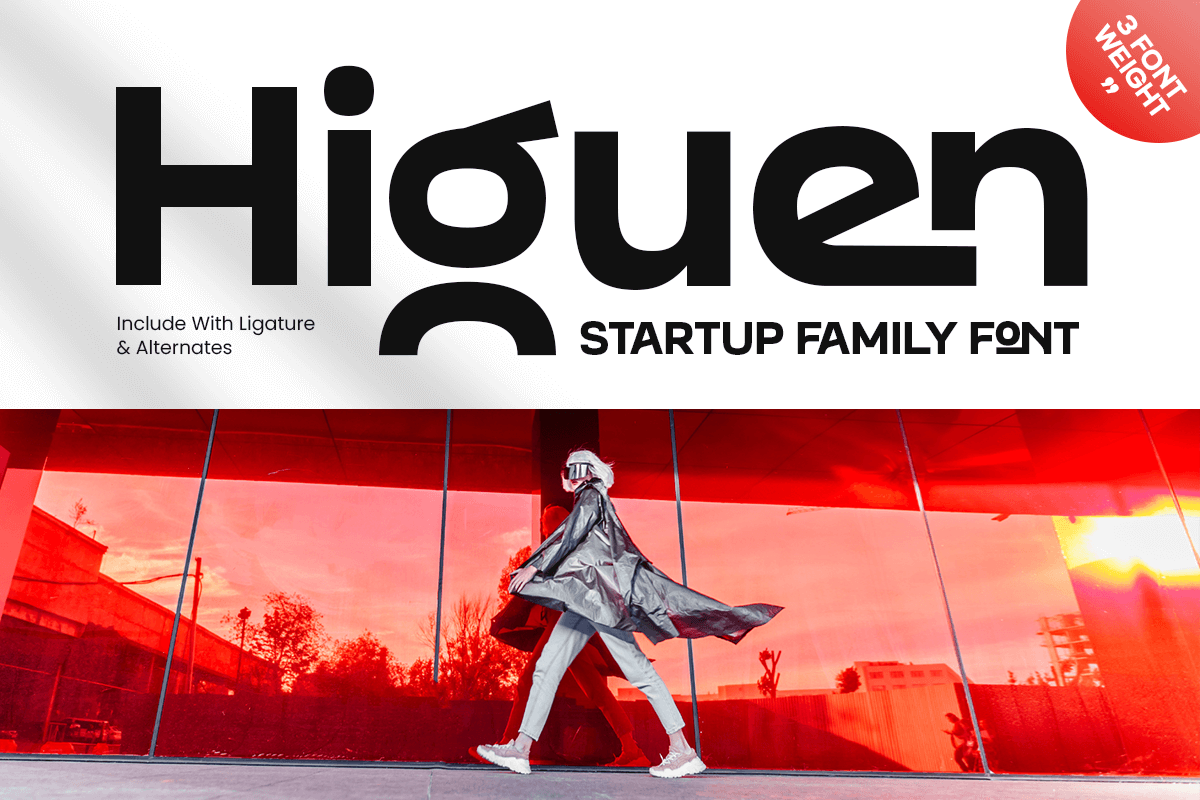
Higuen
-Modern Font Family
Higuen - Modern Font Family
Higuen is a modern font family designed to bring clarity, balance, and sophistication to any creative or professional project. With multiple weights and versatile letterforms, it adapts beautifully across logos, editorial layouts, digital interfaces, and corporate identities.
Perfect for modern branding, presentations, and user interfaces, Higuen offers geometric precision combined with smooth proportions — delivering a sleek and professional tone for both print and screen use. From minimalist posters to business brochures, this typeface family ensures consistent elegance and readability.
Whether you’re designing for tech companies, creative agencies, or digital startups, Higuen provides a complete typographic system that makes your brand feel confident, modern, and timeless. Pair it with serif or decorative fonts to create a balanced design composition.
Higuen – Modern Font Family Features
• Complete modern font family with multiple weights and styles
• Ready with 3 Weights: Light, Regular and Bold Weight
• Perfect for branding, editorial, web, and professional use
• Clean geometric design for clarity and versatility
• Ideal for digital platforms, print materials, and presentations
• OpenType features for advanced design flexibility
Build a cohesive and timeless visual identity with Higuen – the ultimate modern font family for professional and creative branding. ✨